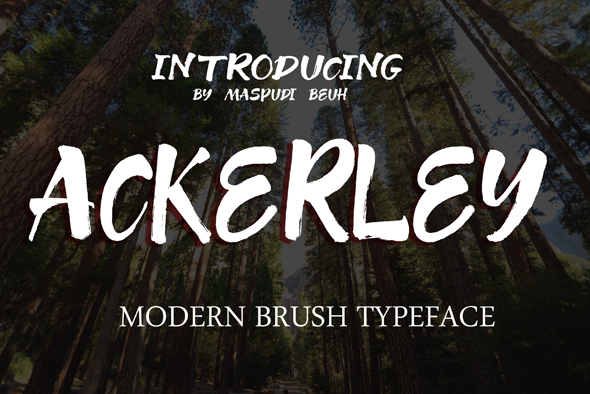
The Ackerey Font: A Fresh Handmade Brush Font for Creative Projects
I’ll never forget the moment I stumbled upon the perfect font for a project I was working on. I had been searching for what felt like hours, scrolling through font after font, but nothing seemed quite right. That was until I discovered Ackerey, a fresh handmade brush font that instantly captured the playful, creative vibe I was going for. In this article, I’ll share my experience with Ackerey, including what I love about it, some quirks to be aware of, and practical tips on how to use it in your own projects.
An Honest Review of Ackerey Font
What I Love About Ackerey ✨
• 💫 Unique, handmade brush strokes that add a personal touch to any project
• 🎨 Versatile and suitable for a wide range of projects, from branding and advertising to invitations and crafts
• 🌈 Beautifully imperfect, with a charming, hand-crafted feel
• ⚠️ Some letters may appear a bit inconsistent in size or spacing, which can be a minor challenge when using it for body text
• ⚠️ Not ideal for very formal or corporate projects, as it has a distinctly playful and creative personality
The Story Behind Ackerey Font
Ackerey font was designed by a talented type designer who wanted to create a fresh, handmade brush font that would capture the playful, creative spirit of modern design. Inspired by the imperfections and uniqueness of hand-painted letters, Ackerey font is perfect for designers, crafters, and creative hobbyists looking for a font that adds a personal touch to their projects.
What is Ackerey font best suited for? Ackerey font is perfect for creative projects, such as branding, advertising, invitations, crafts, and more.
Is Ackerey font suitable for body text? While Ackerey font is highly legible, it may not be the best choice for body text due to its handmade, imperfect nature.
Is Ackerey font available in different weights or styles? Ackerey font may be available in different weights or styles, depending on the specific version you have.